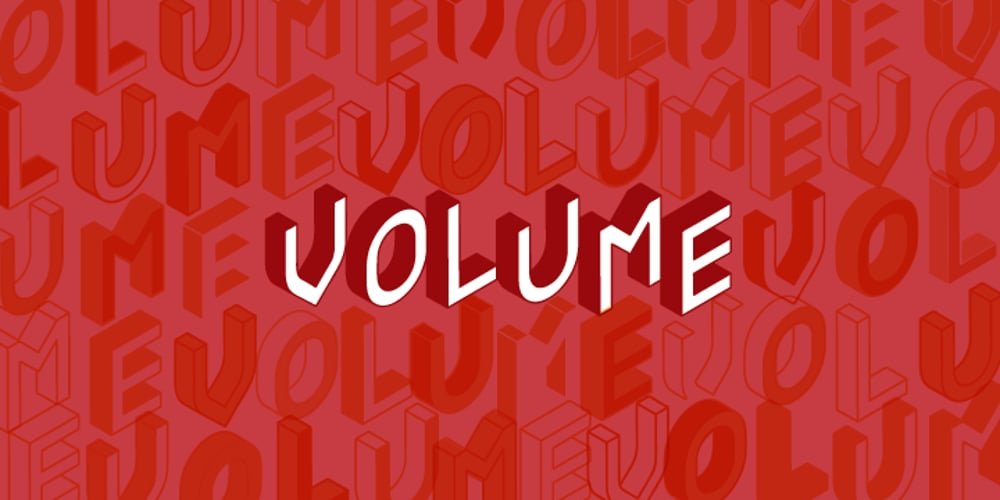
Volume
Volume font
Volume Font Family was designed by Florent Courtaigne and published by Cubo Fonts. Volume contains 8 styles and family package options. Volume is a 3D font, with interlocked characters, inspired by vintage wooden block capitals! Superimposed weights bring light and shadow on the structure and allows many coloured combinations. Cubo est une fonte en volume dont les lettres s’imbriquent, inspirée d’anciens caractère d’imprimerie en bois. Les diiférentes graisses se superposent, créant des effets d’ombre et de lumière, et facilitant la colorisation des caractères.